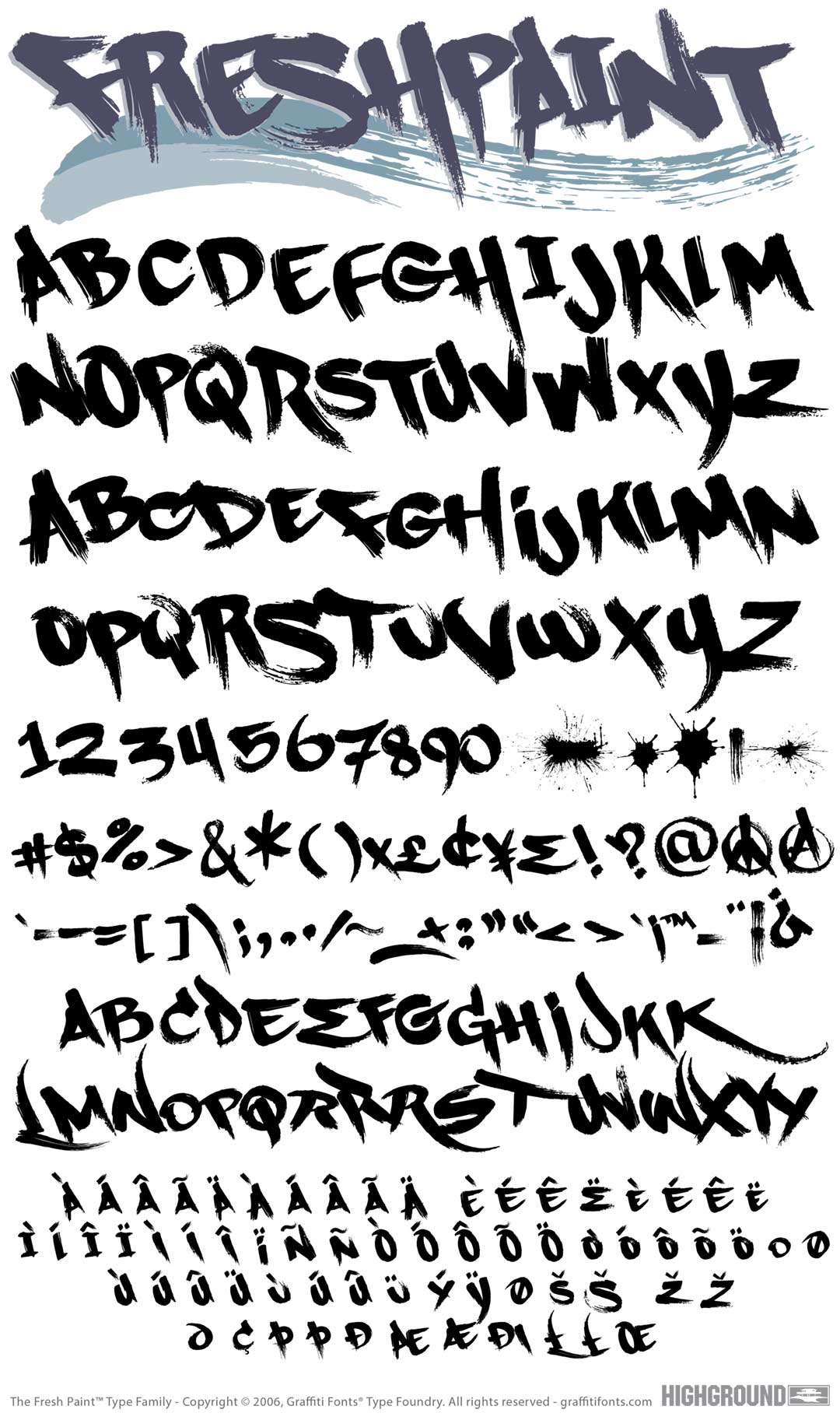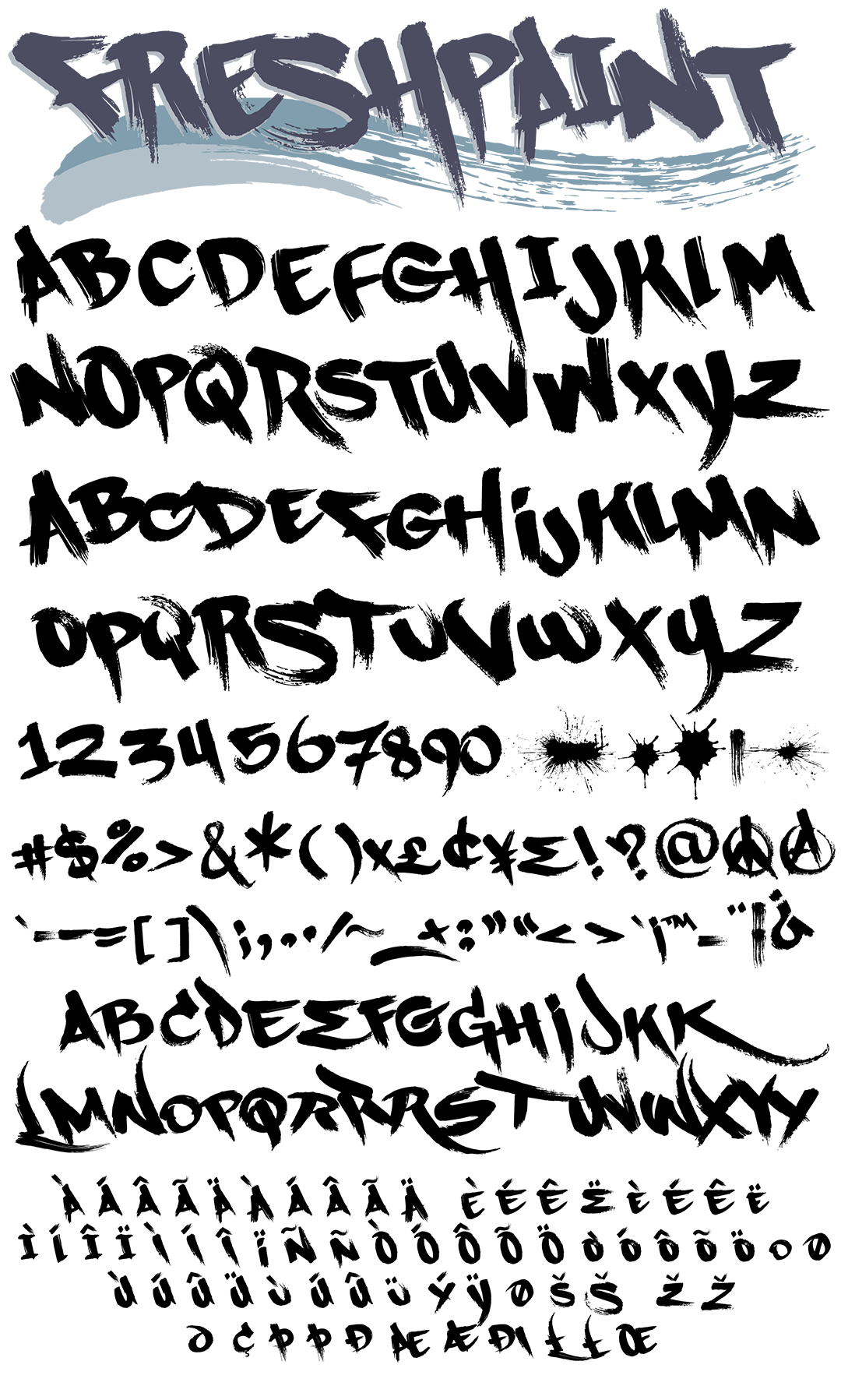
Fresh Paint Font
Fresh Paint Graffiti Alphabet
Fresh Paint Graffiti Font Family
Fresh graffiti handstyle (tagging) presented in a rough, paintbrush style. 2 alphabets of thick, bold, legible letters convey fast, organic motion with detailed streaks & unique letter styles. This font includes 174 characters, letters, numbers, symbols, punctuation, streaks, splats, underlines & more.